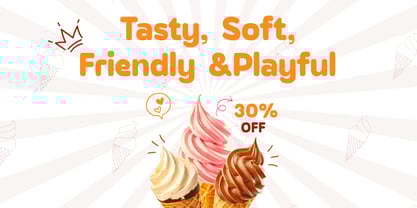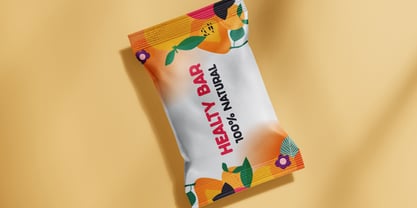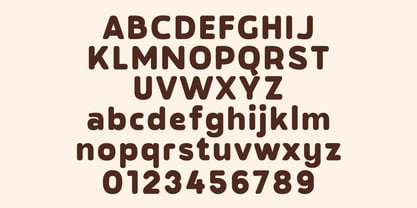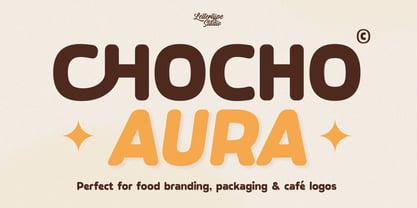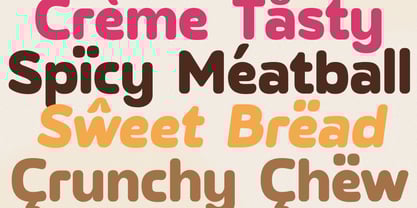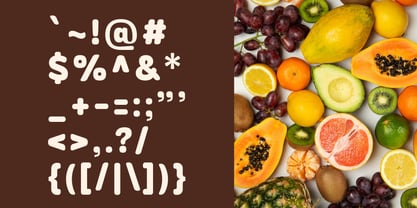
Choco Aura
by Lettertype Studio
The Choco Aura Font Family was designed by Diki Pradipta Tri Atmojo and published by Lettertype Studio. Choco Aura contains 2 styles and family package options.
Is a bold, rounded display font with a tasty personality—crafted especially for food branding, playful packaging, café logos, and anything delicious. Its soft curves and thick strokes bring out a friendly, flavorful vibe that’s perfect for designs that need to feel warm, inviting, and fun. Inspired by the current "aura farming" and food design trends, offers a charming presence that instantly elevates product labels, menu layouts, and social media posts.
This font includes 2 styles: Upright and Oblique, making it simple yet flexible for standout headings, quirky logo types, or bold promotional text. It also supports multilingual characters, allowing you to add an international flair to your designs. Whether you're working on snack brands, dessert shops, or kid-friendly campaigns, is your go-to font for turning type into something irresistibly tasty.